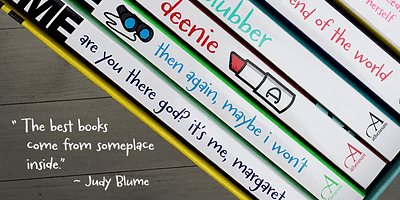
Carrotflower Font Free Download
Carrotflower Font Free Download is a playful and whimsical script typeface with an organic, hand-lettered feel. Featuring smooth curves, playful letterforms, and a natural flow, this font is perfect for creative projects such as branding, invitations, posters, and any design requiring a fun, handwritten touch.
Carrotflower Font Free Download brings a fresh, lighthearted energy to your typography. Its flowing, almost floral aesthetic makes it a great choice for projects that aim to evoke a sense of joy, warmth, and creativity—ideal for branding that wants to stand out with a natural, hand-crafted vibe.
Whether you're designing for organic products, events, or personal creative projects, Carrotflower adds charm and personality to your designs.